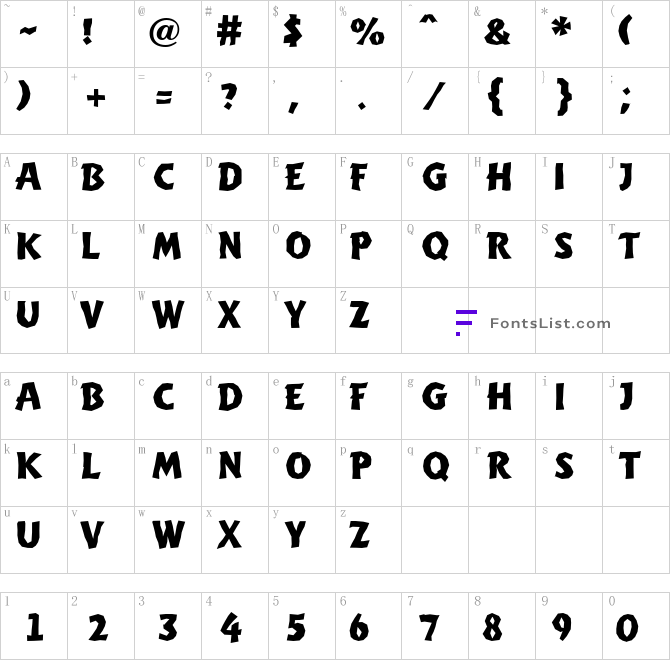
- Font Name:a_WritBrk
a_WritBroken.ttf is a very beautiful artistic font, a_WritBroken.ttf is widely used in the design and printing of various books and pictures,a_WritBroken.ttf has a strong visual impact,a_WritBroken.ttf is a commonly used font in newspapers, magazines and books, and is used in posters, e-commerce Poster design, store design, logo design, font design and other fields.a_WritBroken.